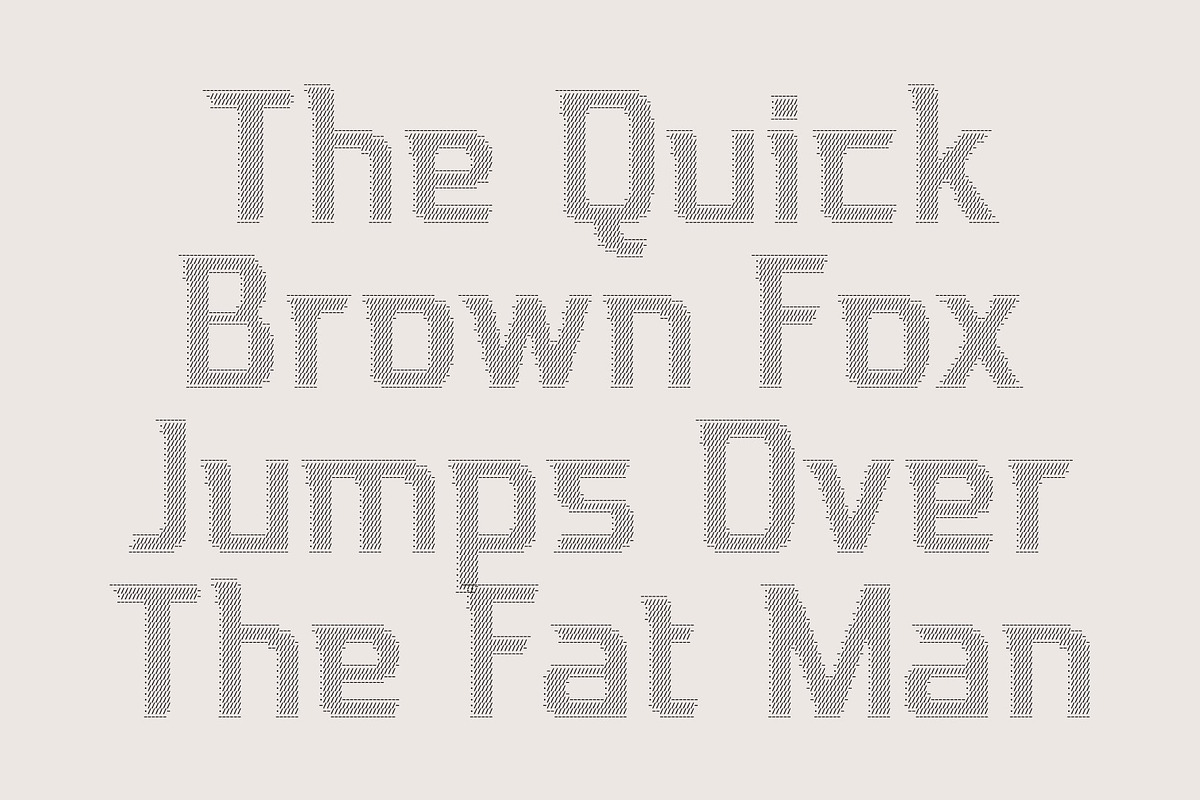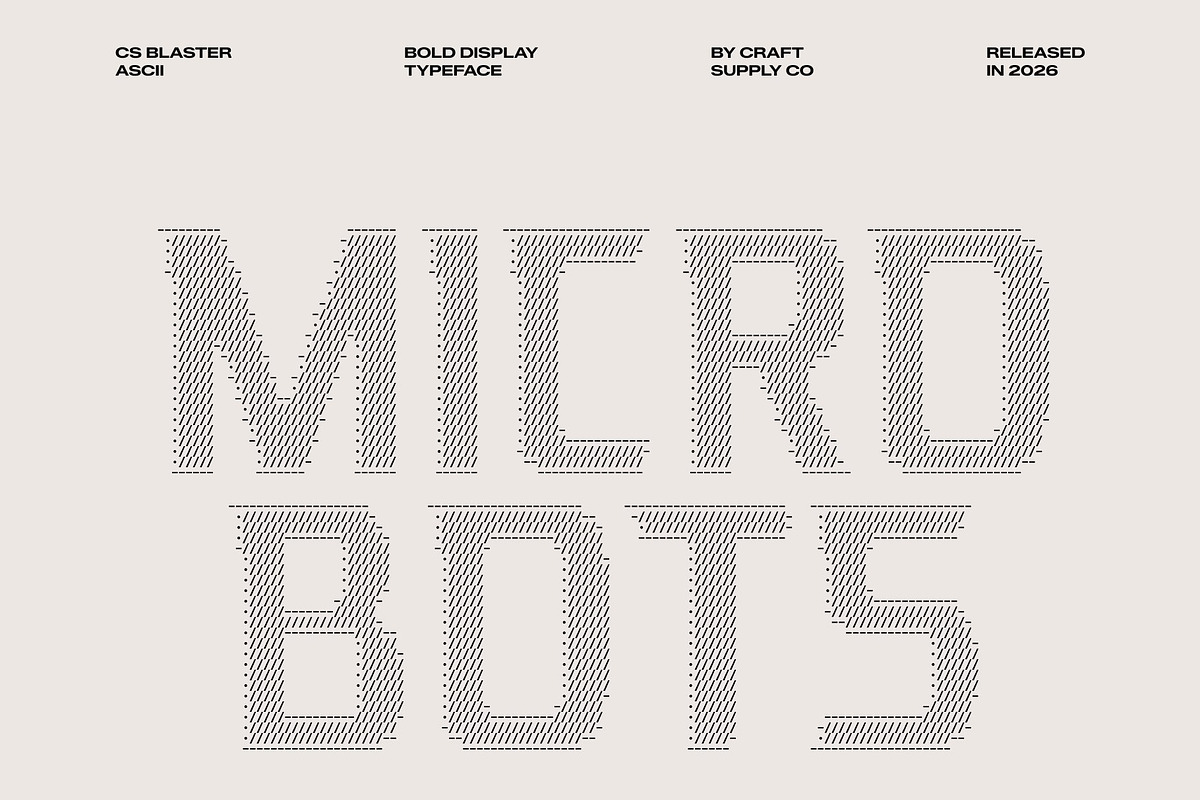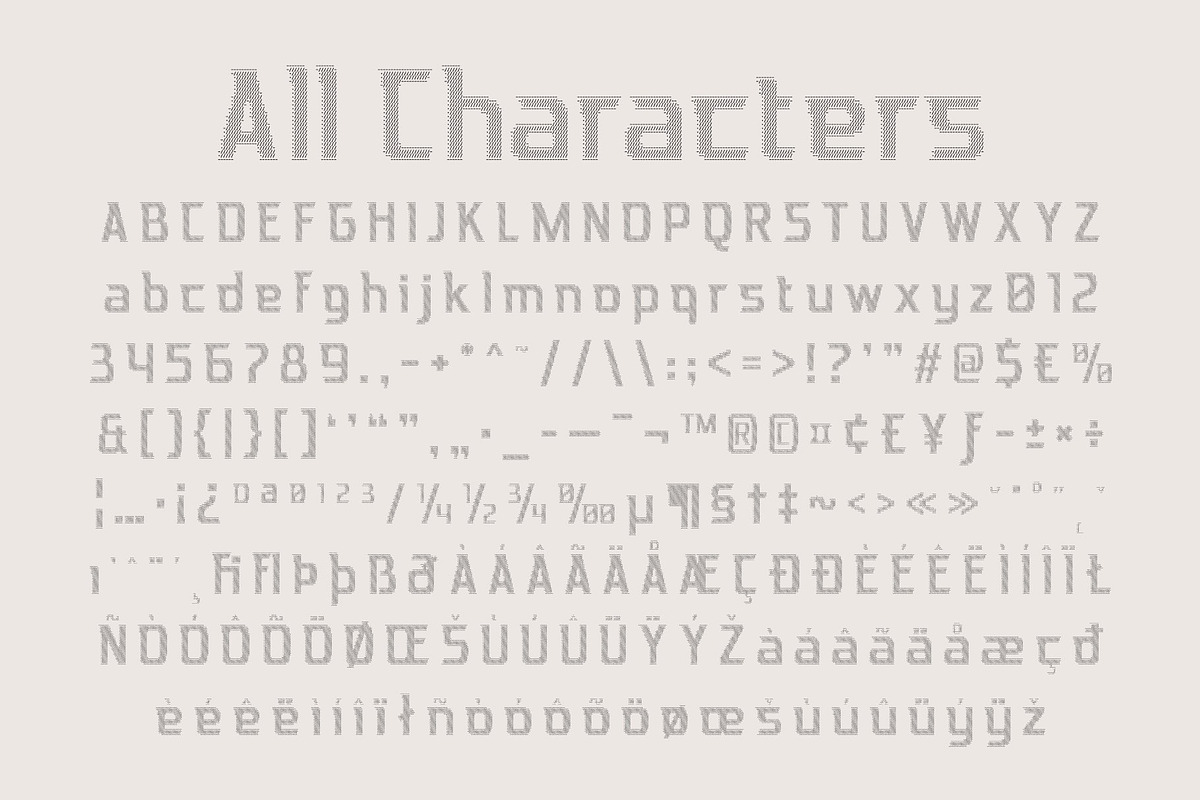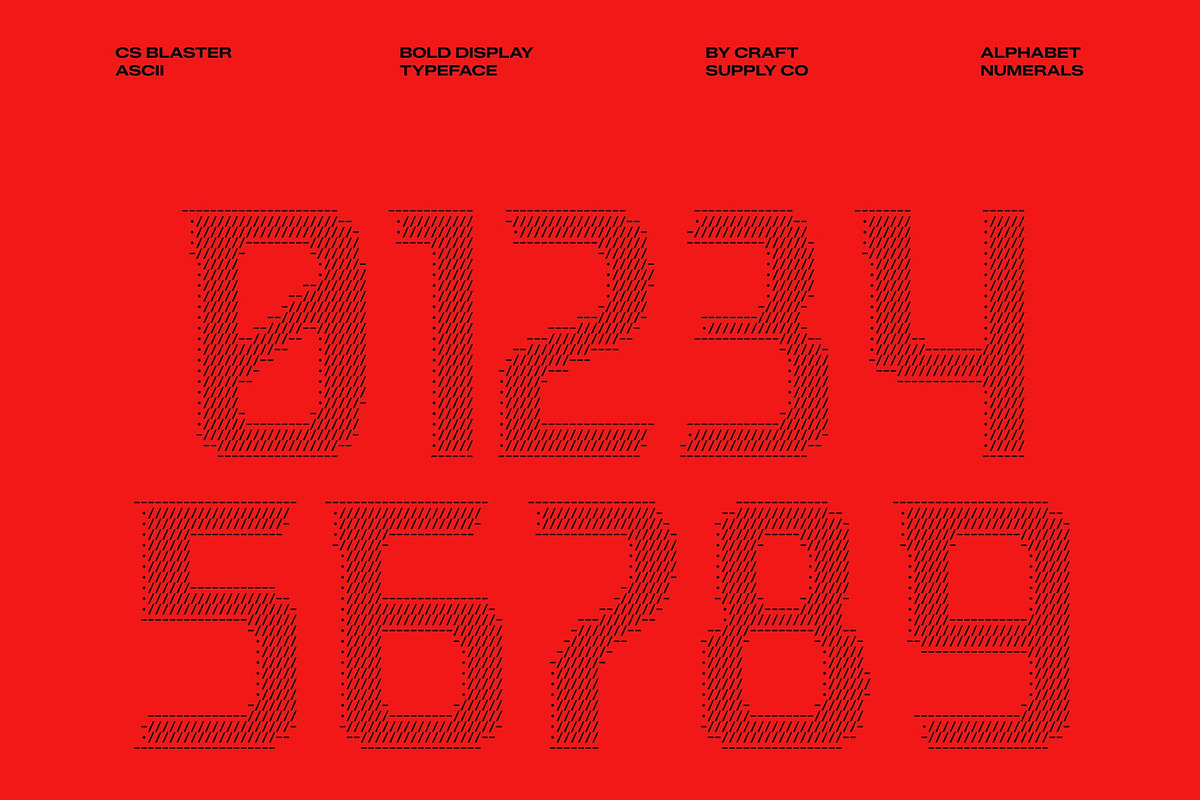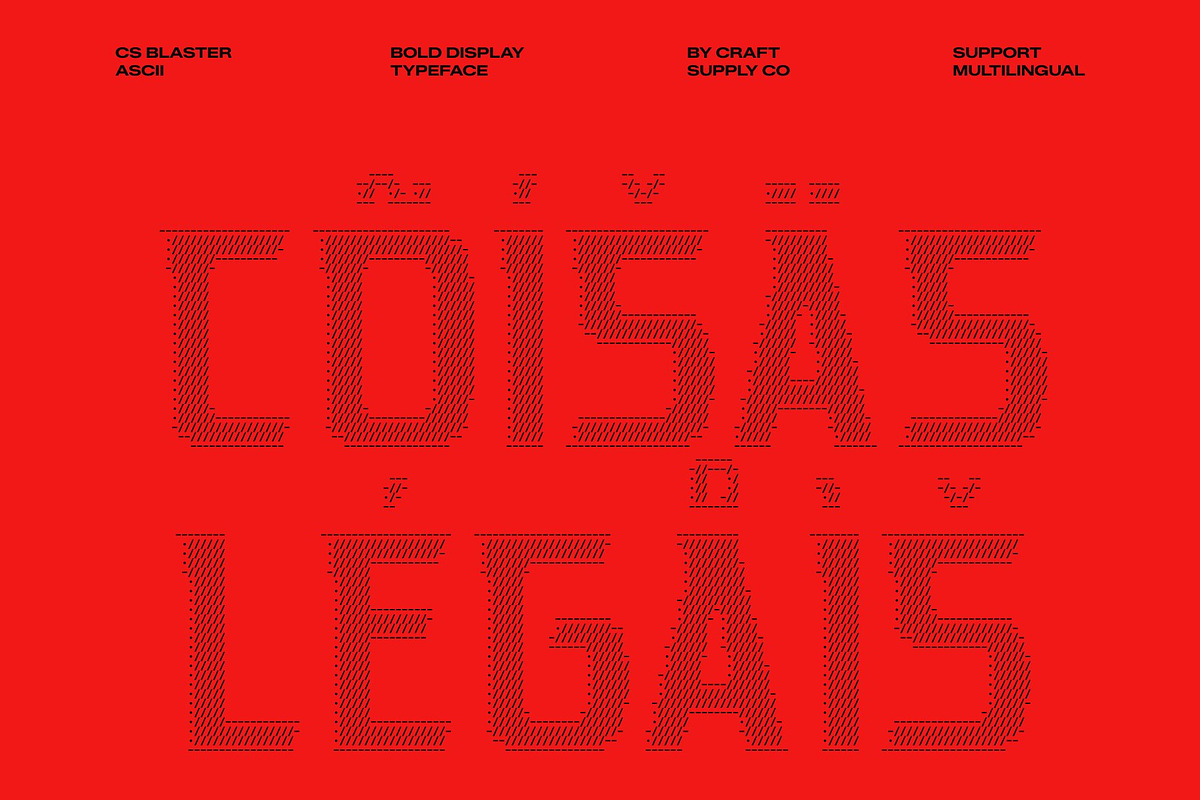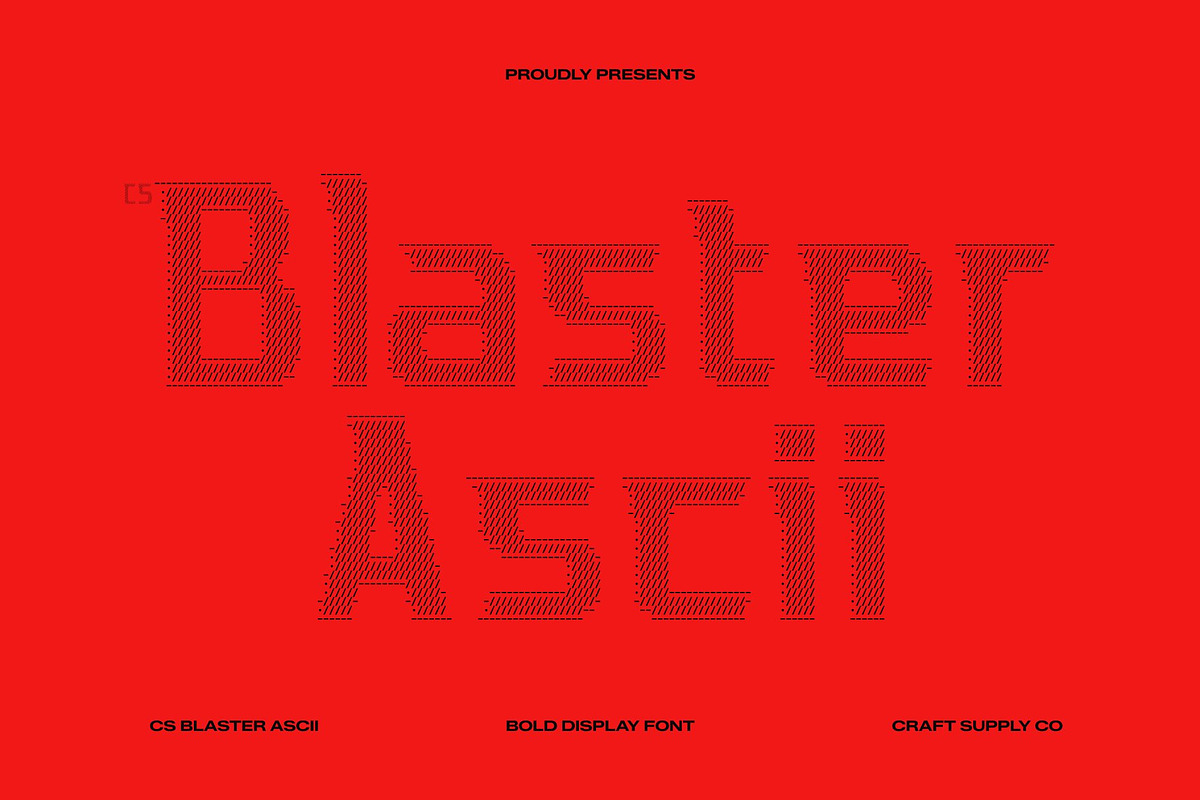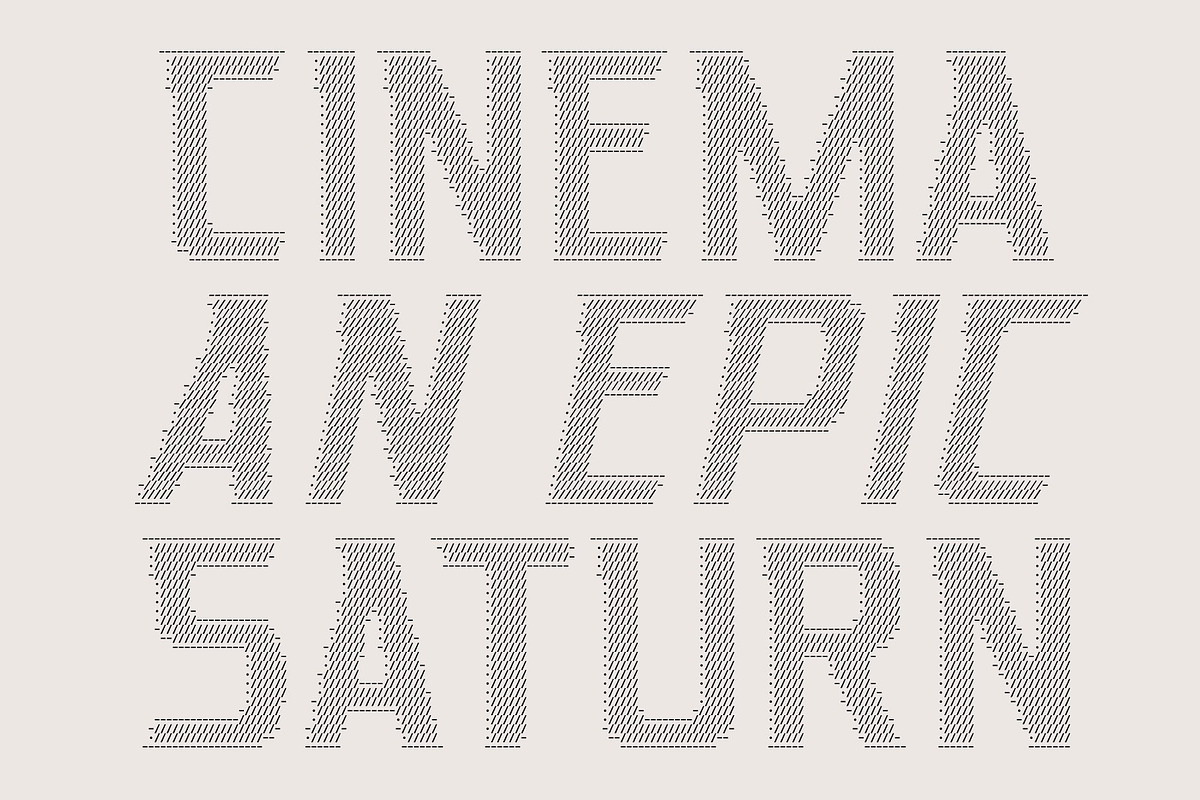
CS Blaster Ascii
CS Blaster Ascii – Futuristic Techno Display Font: Where High-Tech Geometry Meets ASCII Art Expression
Bold Geometric Forms with Futuristic Energy This is a sans serif display font featuring bold, geometric shapes that project a strong futuristic and high-tech aesthetic. Its sharp construction, structured proportions, and modern visual rhythm create a powerful presence that feels innovative, dynamic, and ready for the digital age. Every character is designed to command attention, making it ideal for forward-thinking creative projects.
ASCII Style with Digital Artistic Appeal This font transforms traditional letterforms into decorative compositions built from arranged characters and symbols. This unique effect creates the impression of typography functioning as both text and digital artwork, adding an experimental and technological dimension to the font.
Futuristic Technology Meets Creative Expression This font delivers a typographic identity that feels innovative, energetic, and visually engaging. Its geometric forms combined with symbolic detailing evoke advanced technology, cyber aesthetics, digital systems, and futuristic environments, creating a look that is both cutting-edge and memorable.
Perfect for Digital Branding and High-Tech Visuals Perfect for digital branding, technology campaigns, posters, gaming graphics, website headers, app interfaces, social media content, event promotions, and cutting-edge design projects. Its distinctive ASCII forms make it ideal for logos, headlines, titles, and visual identities that seek to communicate innovation, creativity, and futuristic appeal.
CS Blaster Ascii Regular
CS Blaster Ascii Italic